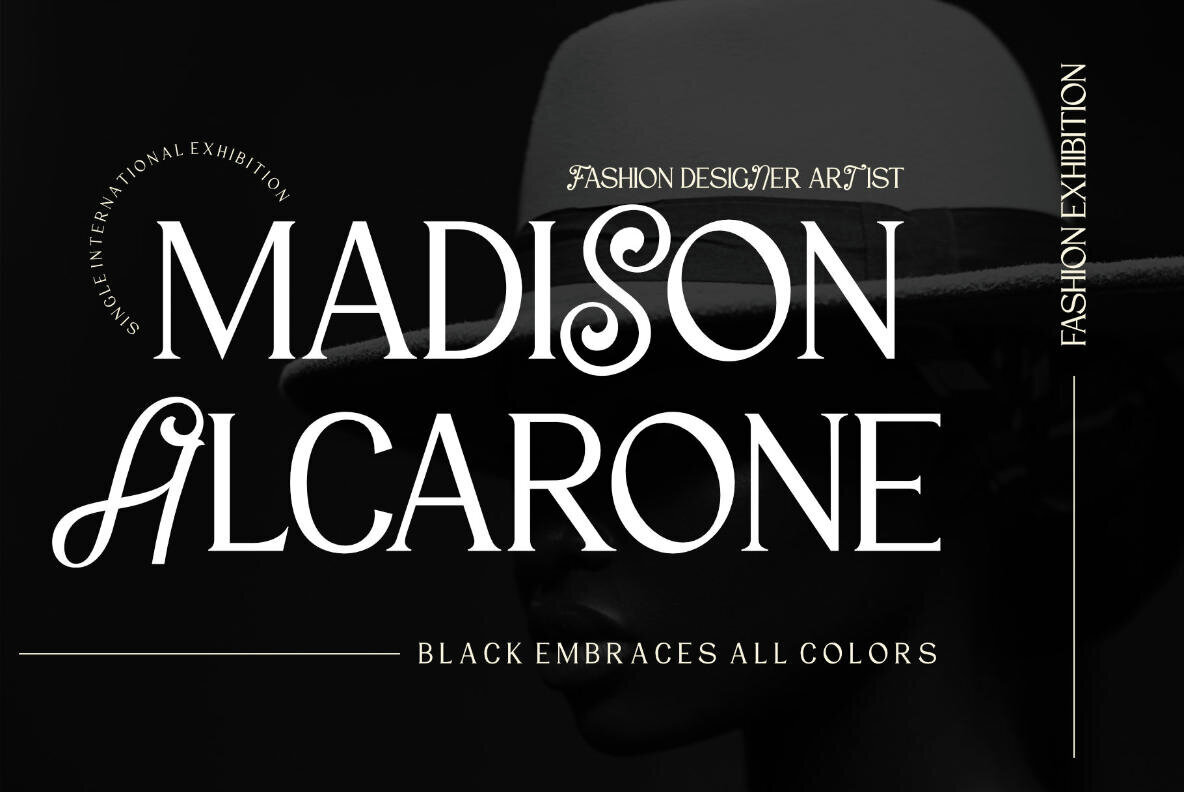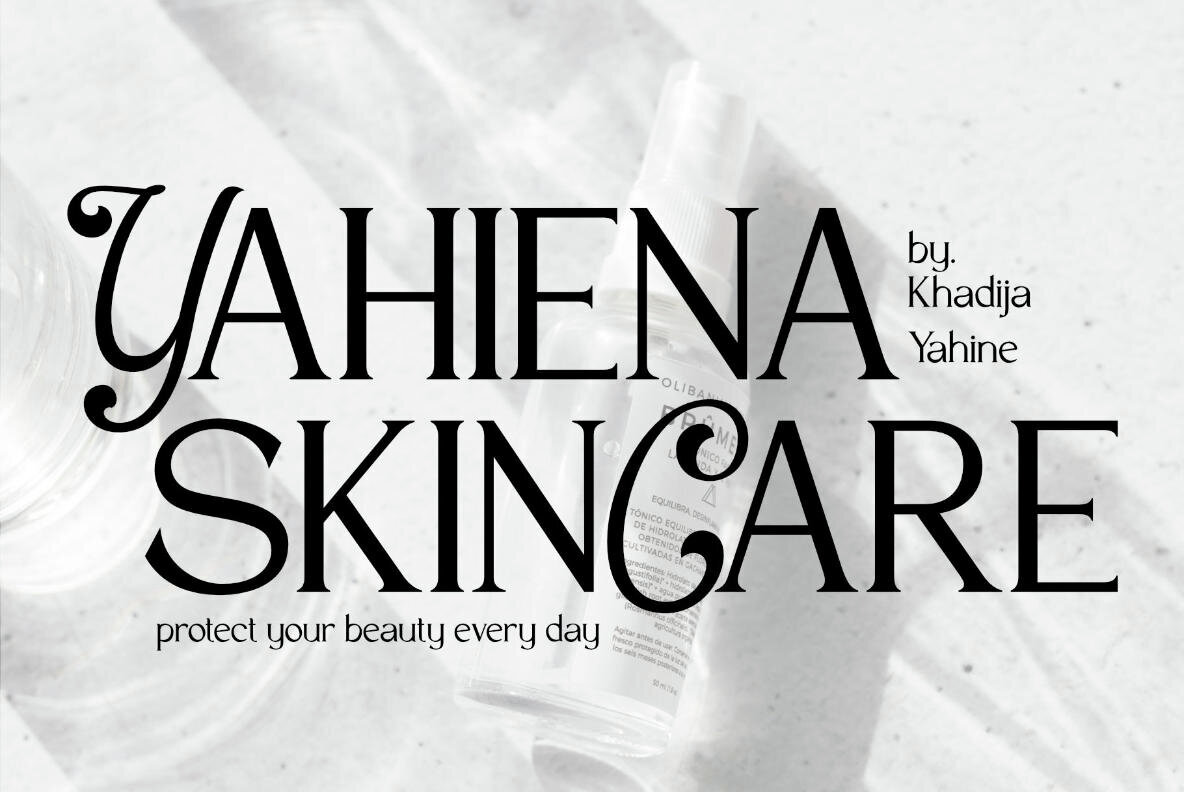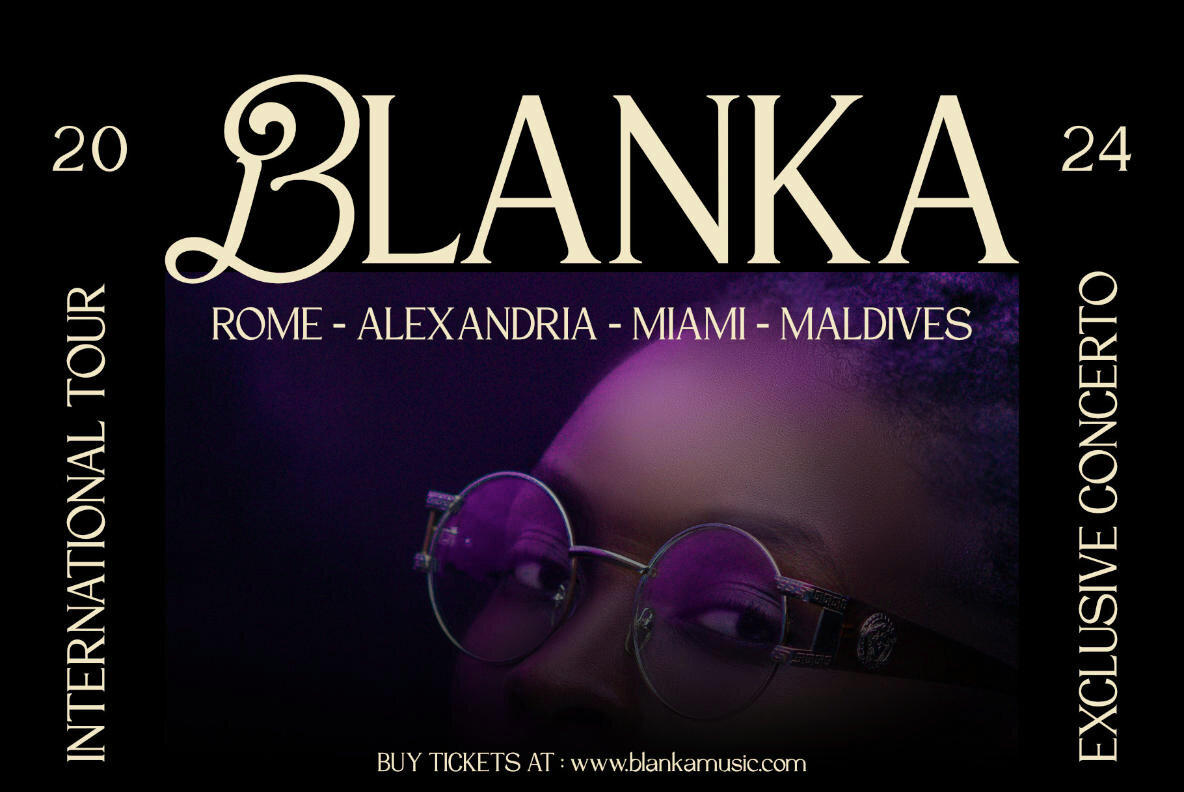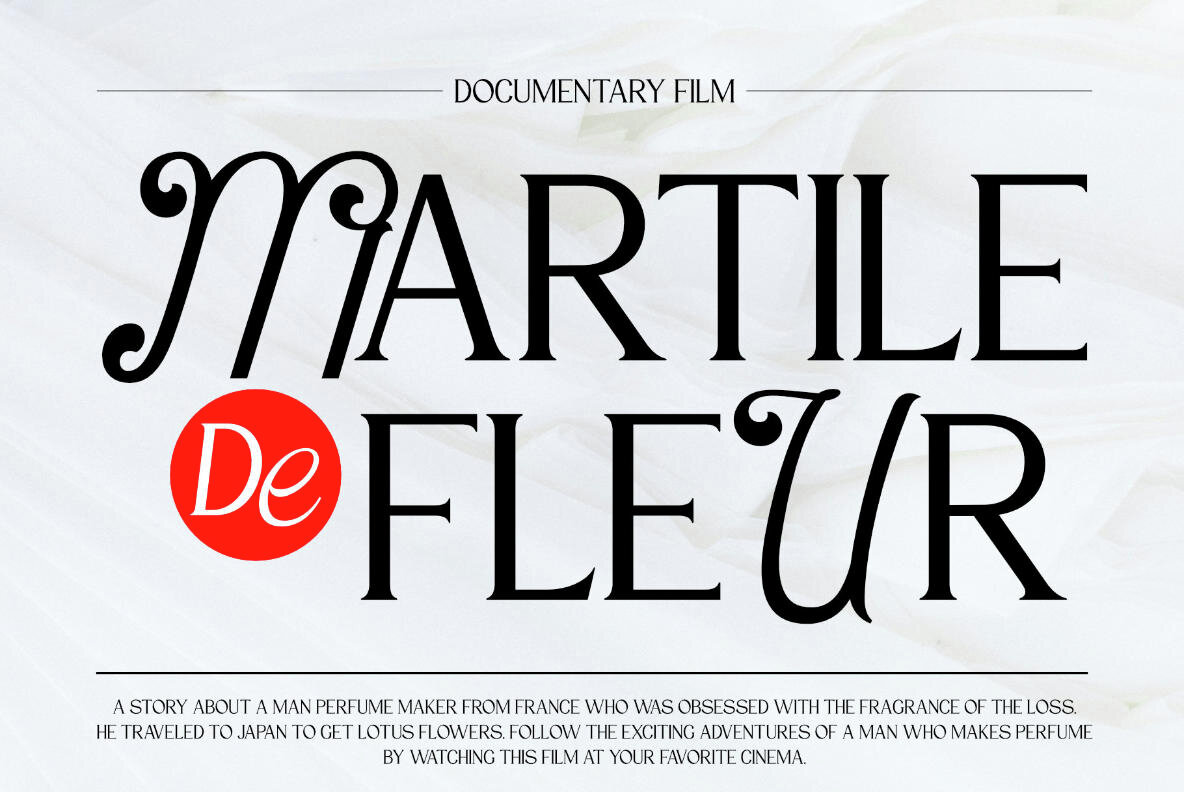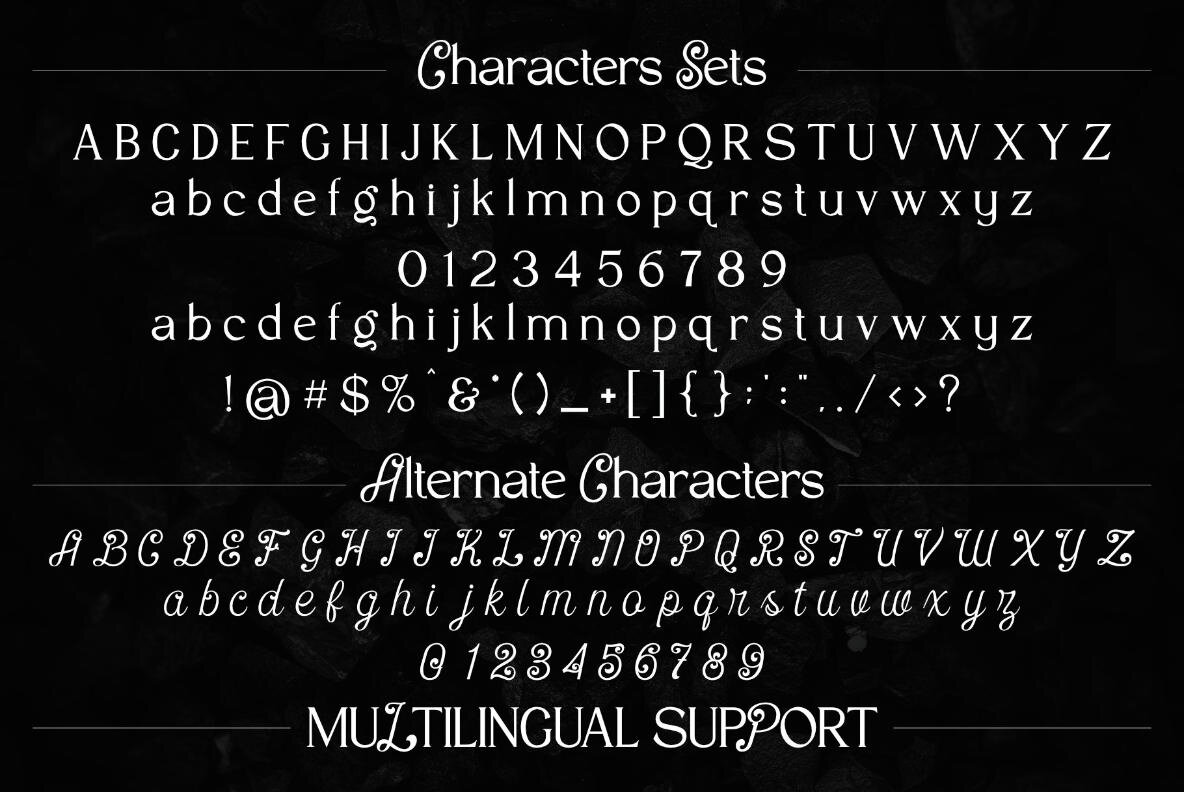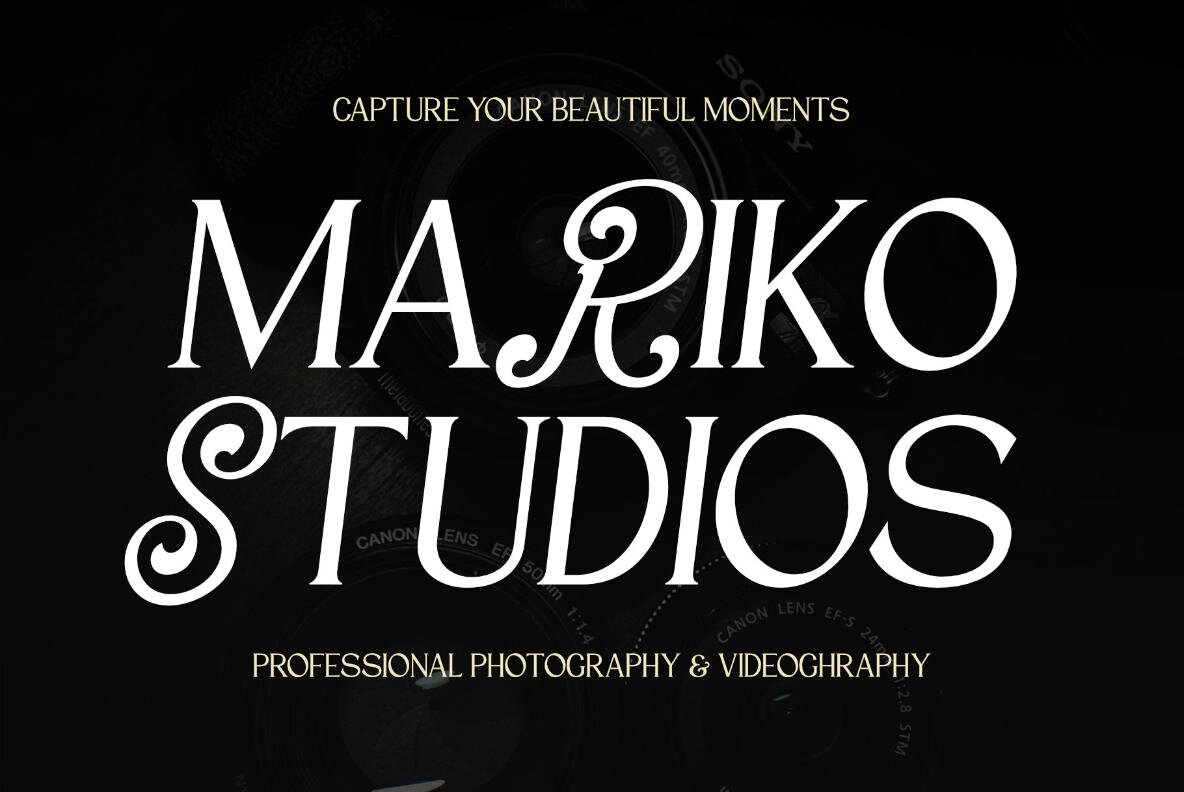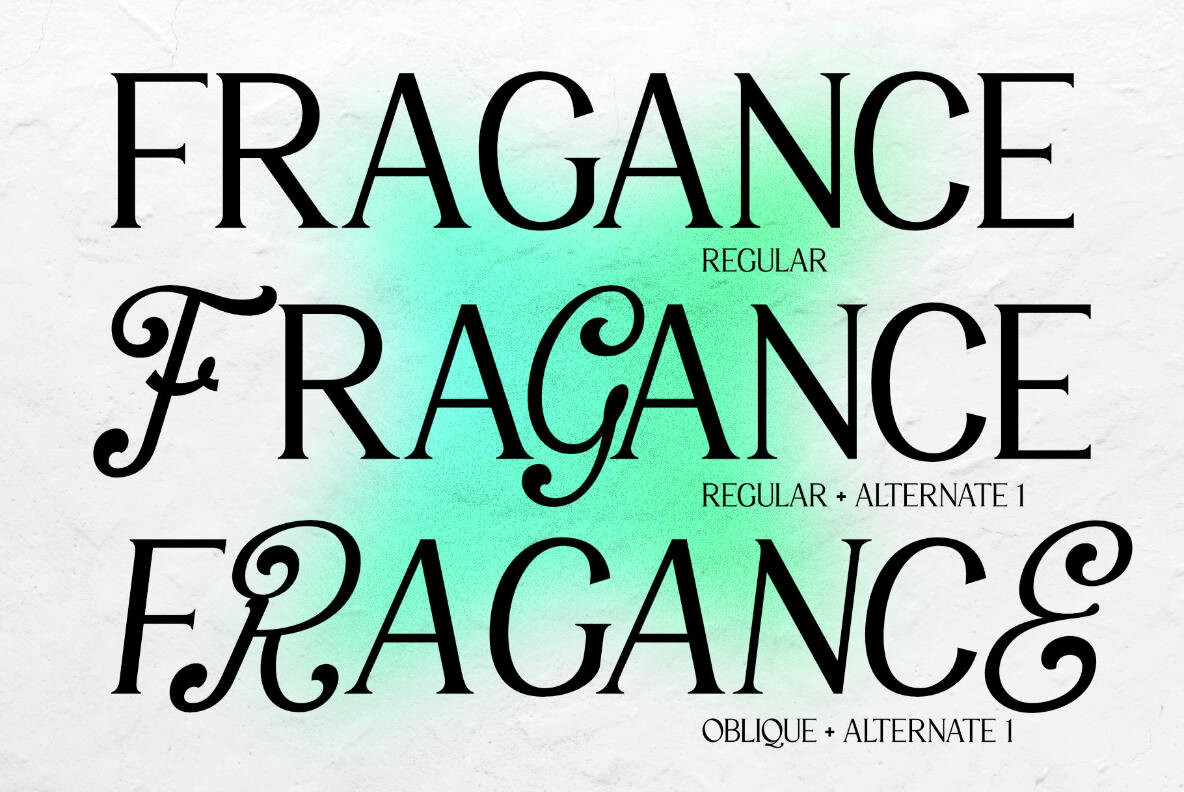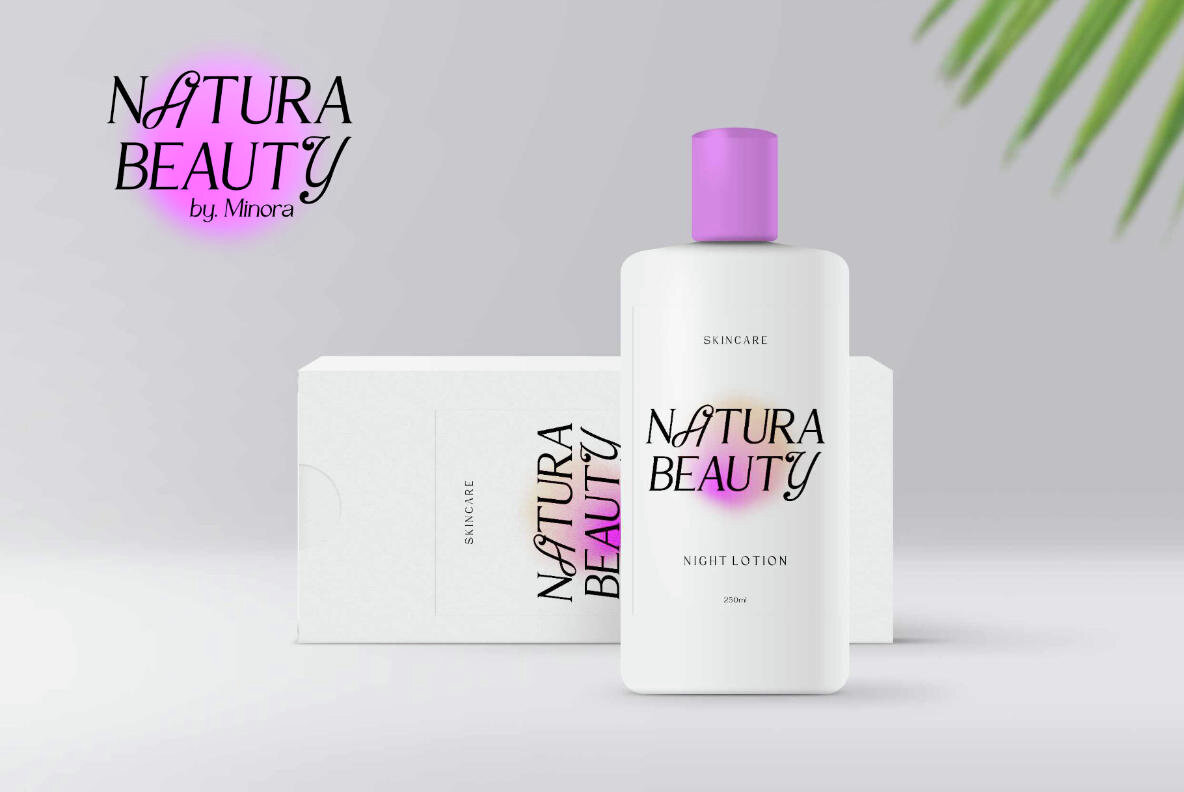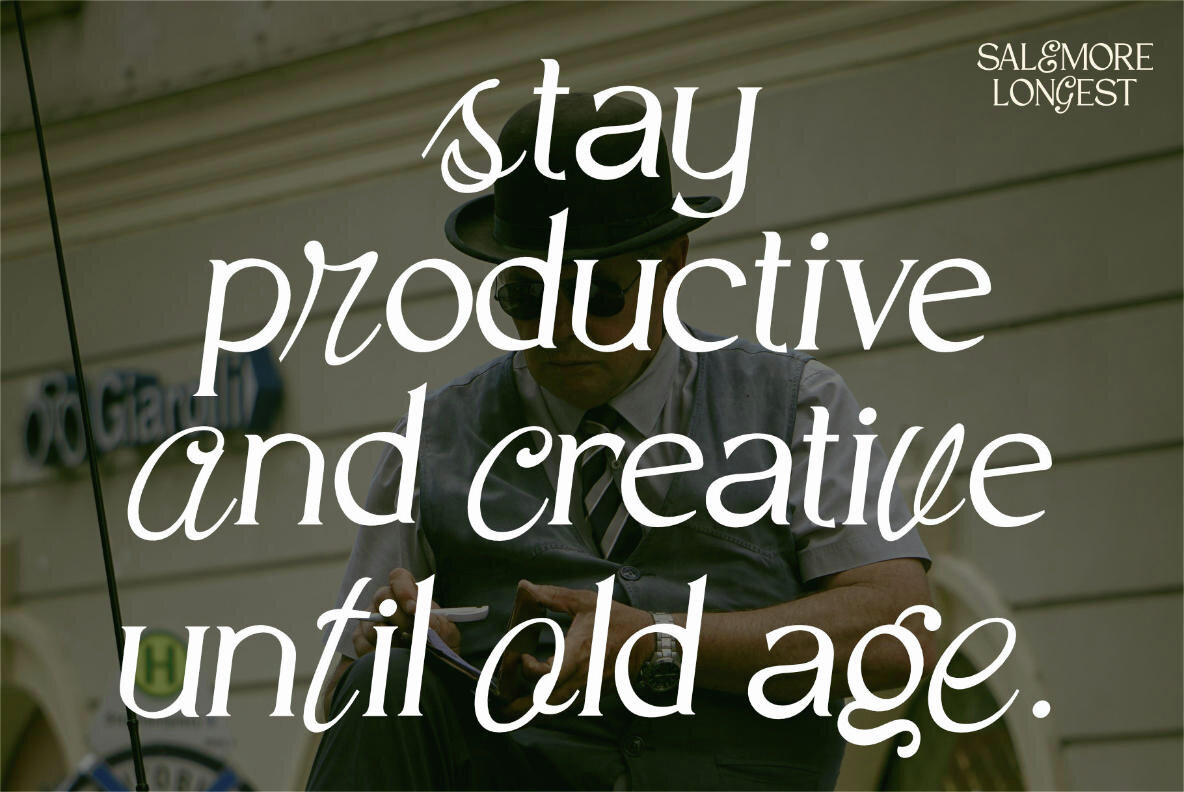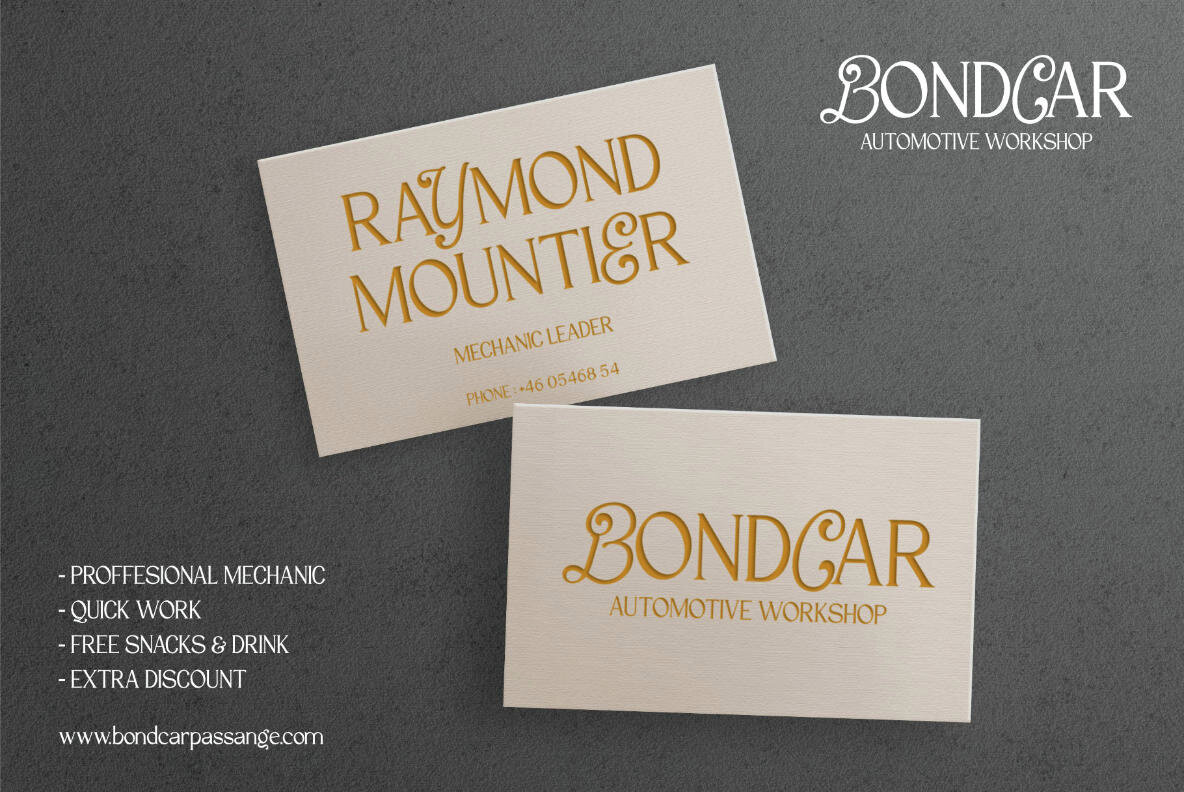
Salemore Longest Font
Introducing Salemore Longest Font Combination: Where Elegance Meets Femininity Elevate your design projects with the enchanting Salemore Longest Font Combination. Crafted meticulously to blend the timeless sophistication of serif with the graceful curves of script, this font duo embodies softness and femininity at its finest. The Salemore Longest Serif font exudes a sense of refinement with its clean lines and subtle serifs, adding a touch of elegance and structure to your typography. On the other hand, the Salemore Longest Script font brings a delicate charm with its flowing strokes and graceful letterforms, infusing your designs with a distinctly feminine allure. Whether you’re creating wedding invitations, branding materials, or social media graphics, the Salemore Longest Font Combination offers versatility and beauty to enhance any project. Its seamless integration of serif and script elements allows for endless creative possibilities, while its gentle character appeals effortlessly to a wide audience. Unlock the magic of Salemore Longest Font Combination today and elevate your designs to new heights. With its blend of sophistication and femininity, this font combination is sure to captivate hearts and leave a lasting impression. Don’t miss out on the opportunity to enhance your visual identity and boost your online presence with the captivating beauty of Salemore Longest Font Combination. Get your hands on it now and let your creativity soar!